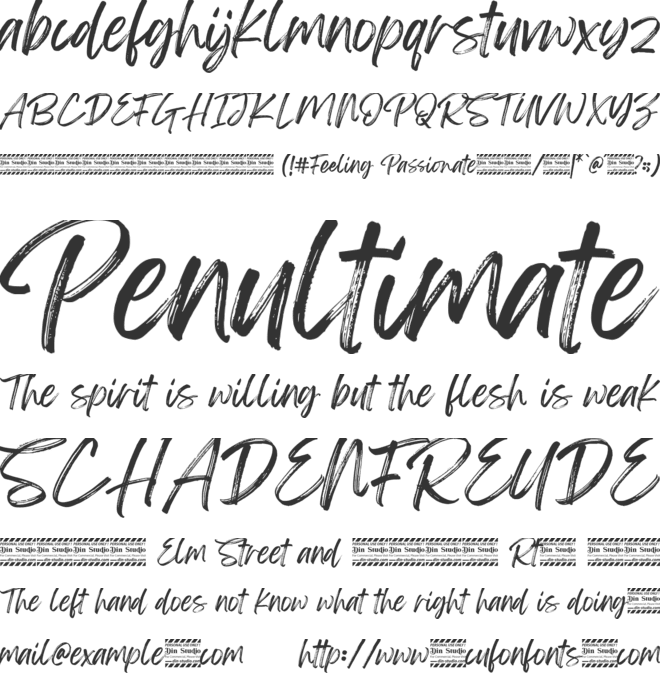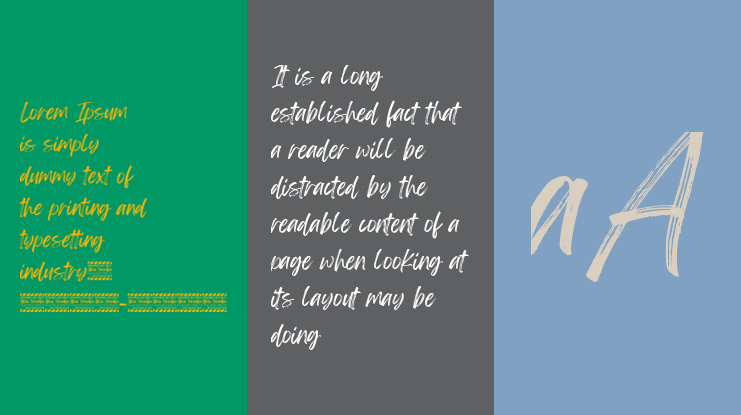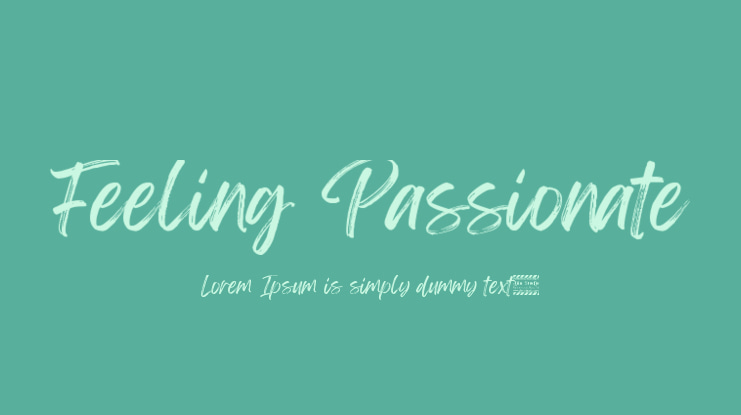
Feeling Passionate Font
Feeling Passionate is a casual and beautiful brush font. It will make your design project more beautiful. This font is suitable for any design like branding, fashion, print templates, quotes, wedding, and more.
•78 Beautiful Alternates
•15 Beautiful Ligatures
•52 Swashes
•PUA encoded
•Multi-lingual Support
•Numerals and Punctuation (OpenType Standard)